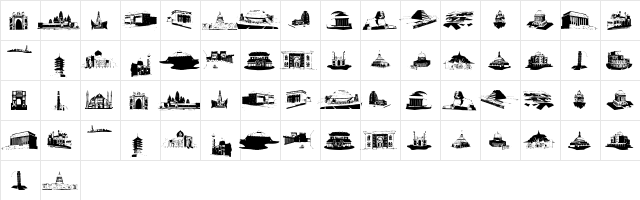
InternationalSigns Regular
Design Context for InternationalSigns Typeface
InternationalSigns is a composed and adaptable typeface that performs quietly and consistently across a wide range of design contexts.